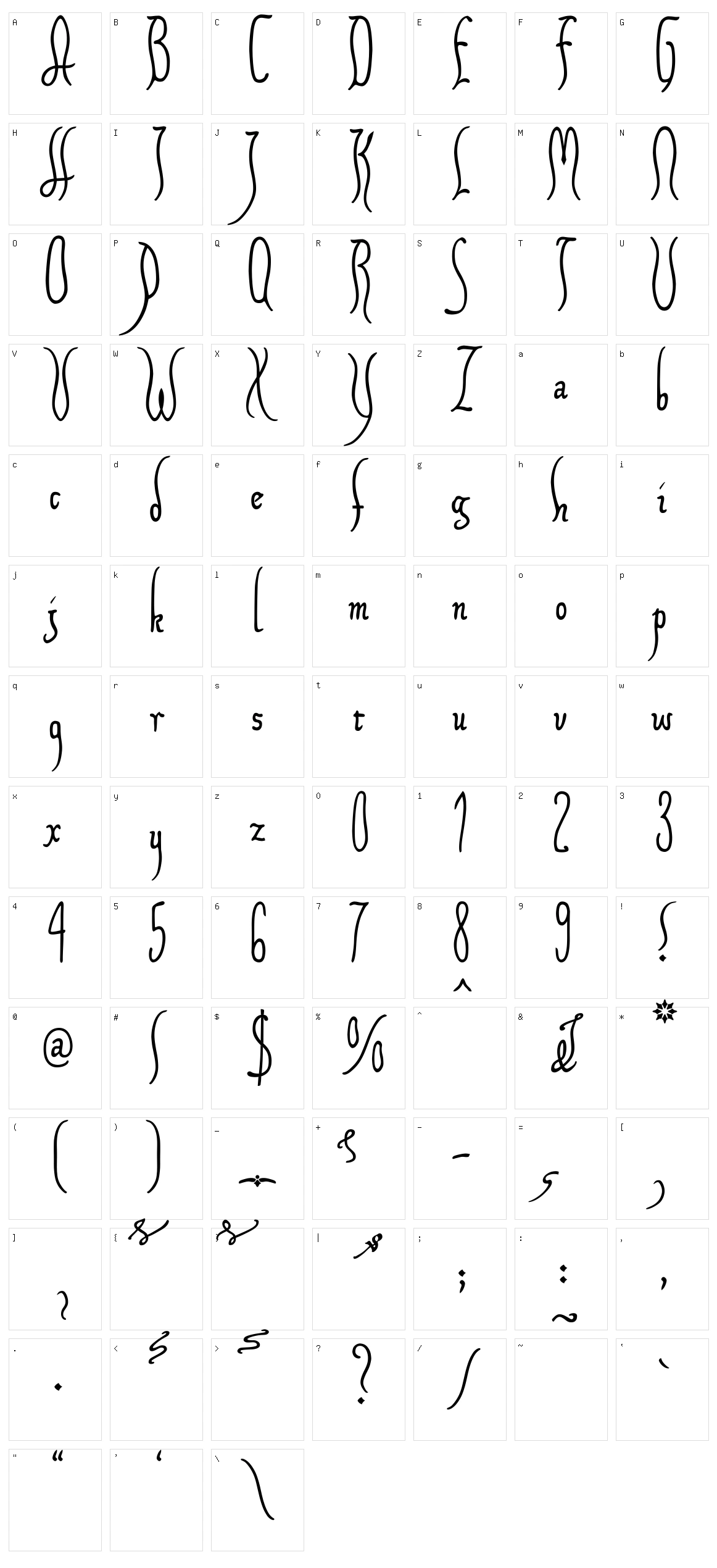
Xiparos
Designed by: Pia Frauss
The XIPAROS font is sort of an extract of some German charters issued nine hundred years ago by the German emperor Henry V. Its lower case letters are rather genuine, if perhaps a bit more regular, and less edgy than the originals. However, I reduced the disproportions between upper and middle zone, and shortened the r to sit on the line. As for the upper case characters, I made them up myself out of the long s, trying to give a legible impression of those charters' more bizarre compositions.
There is are some of the contemporary decorations included in the XIPAROS font. However, they aren't attached to the glyphs. With one exception, they have to be typed like accents before the glyphs to which they belong, and you'll have to go for them on the following keys:
-- On the less sign, you'll find a zigzag line that works with b, k, and l.
-- On the greater sign, you'll find a zigzag line that works with f and h.
-- The + sign contains a little end swash that will look well after c, e, g, o, r, s, t, v, w, x, y, and z. It's an abbreviation sign that, originally, may have replaced an ending -s; but I've seen it at the end of expressions like moderno tempore, where it could mean nothing but decoration. This is the one and only of the font's decorations to be typed after the letter to which it belongs.
-- On the = sign, there is a little swash that will look well before words beginning with a, b, c, d, e, d, o, p, s, and t. Its original use was that of an abbreviation sign, applied before the p, and meaning the syllable pro; but I've seen it before other letters as well, even in the middle of a word, and don't have the least idea as to its meaning in those contexts.
-- On the left bracket, you'll find a little swash that will add a loop to the letter j.
-- On the right bracket, you'll find a little swash that will add a loop to the letter g.
-- The bar and broken bar sign contain an abbreviation sign of absolutely indefinite meaning, which will look well above every lower case letter except the i and j.
-- On the left curly bracket, you'll find a double loop to be combined with d, H, S, and ll.
-- On the right curly bracket, you'll find the double loop that should work well with f, h, l, k, and ...
... the long s -- which, of course, is occupying its usual place, on the number sign.